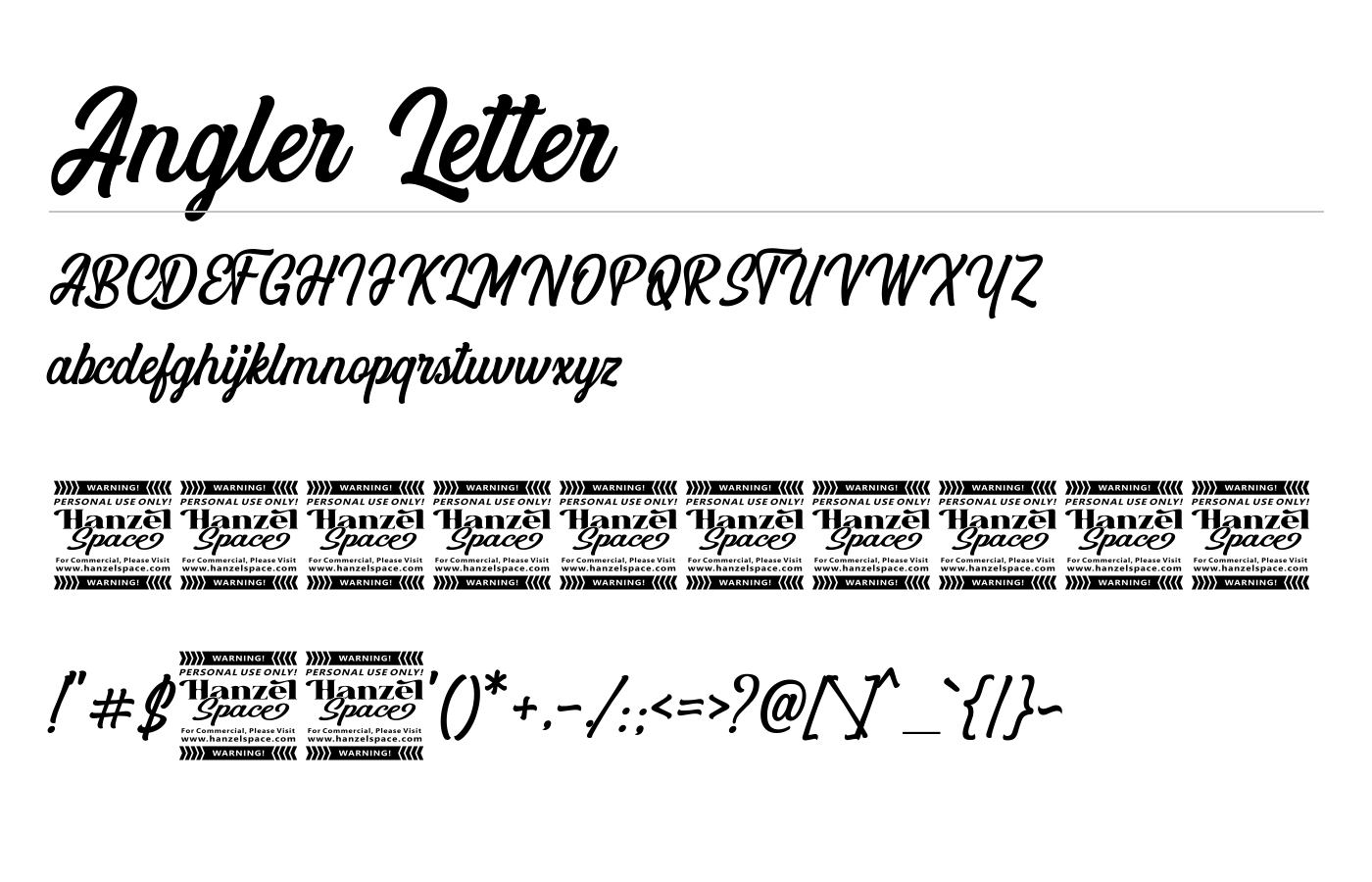
Angler Letter is a stylish script font with a smooth, flowing design that gives it a friendly and elegant feel. Its medium weight and slightly condensed letterforms make it suitable for both decorative headlines and playful branding, especially where a personal or handcrafted touch is desired. Perfect for invitations, logos, and creative projects, this font adds a charming, handwritten vibe without sacrificing readability.
Angler Letter Font
About Angler Letter Font
| Font family | Angler Letter Font |
| Designer | Hanief Farandi |